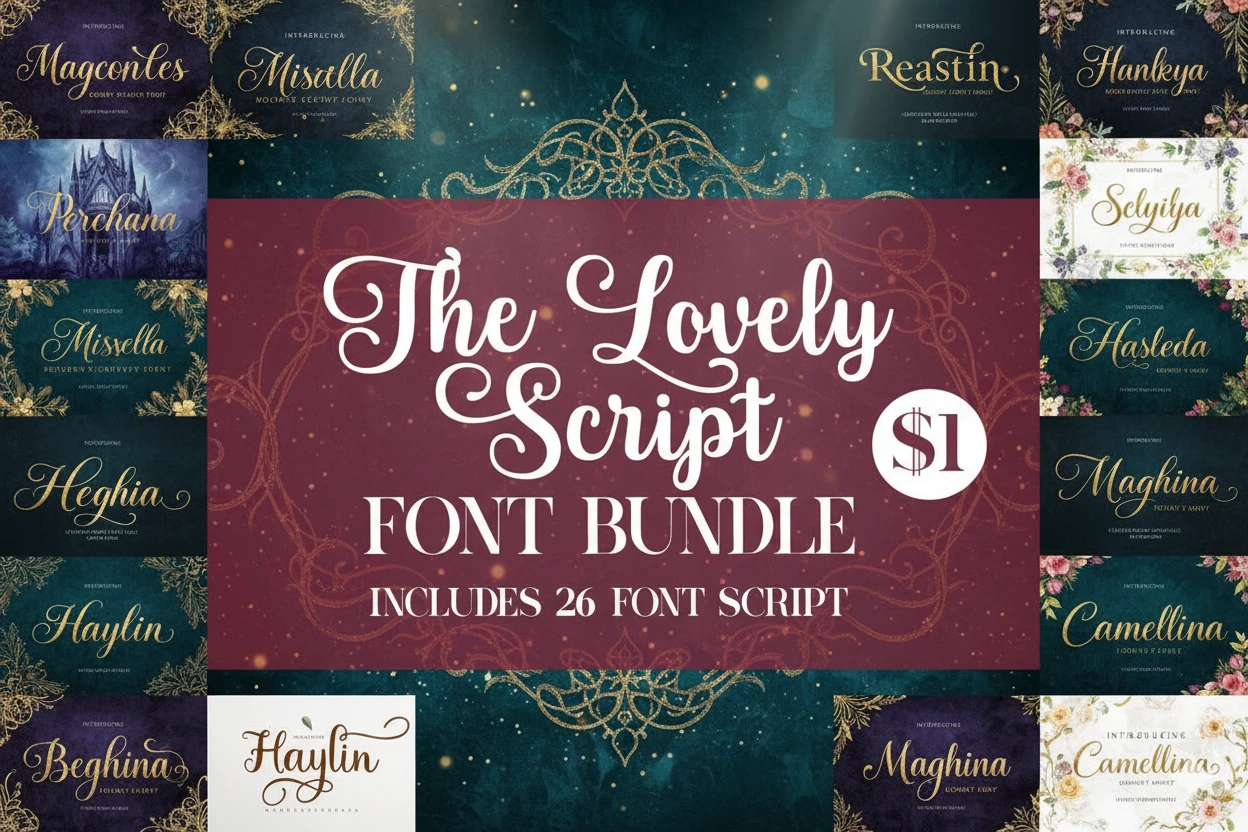
Imagine having a set of 26 really nice script fonts that could make your designs look amazing. This Lovely Script Font Bundle is all about giving your work a touch of class and charm without a lot of effort.
Each font in this collection was carefully crafted. They focused on making smooth curves and clean lines. So, whether you're doing something for work or just for yourself, these fonts will fit right in.
Think about designing logos, wedding invites, cards, product labels, or even posts for social media. This bundle has a lot of different styles to pick from. You'll get everything from modern calligraphy to fonts that look like natural handwriting and more decorative styles.
There's a good chance you will find something to suit your style. These fonts also come with some extras like different letter styles, letter pairings, and fancy flourishes. You can change these settings to make your words look exactly how you want them and give a polished, unique feel.